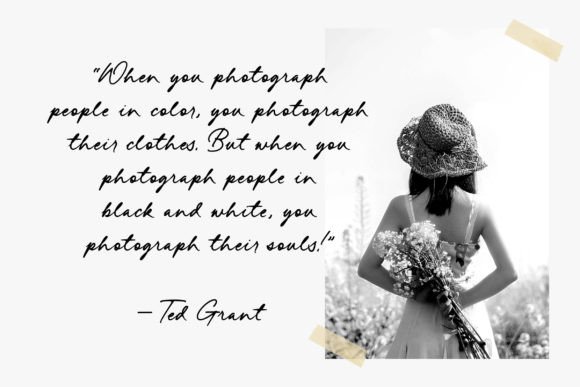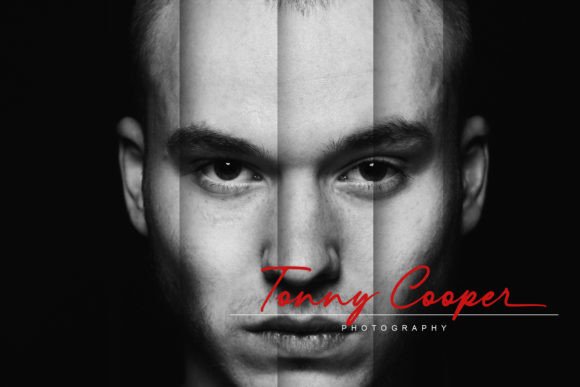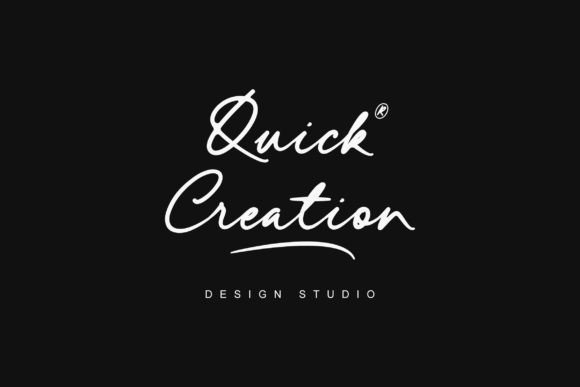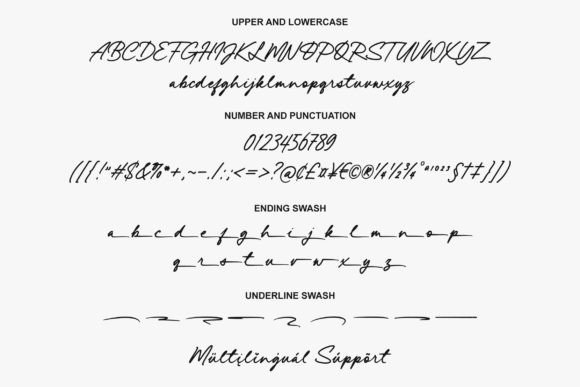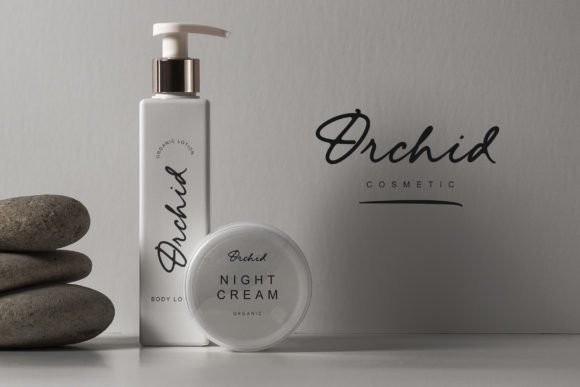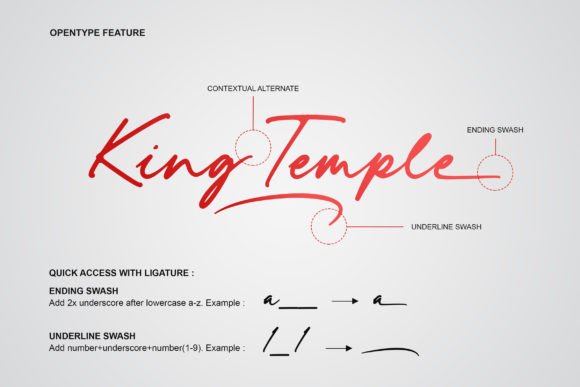
Introduction to Dockyard Font
Dockyard is a relaxed handwritten font, that has a gentle and beautiful flow.
This font is perfect for logos, wedding invitations, stationery, photography, social media posts, product packaging, greeting cards, and much more Dockyard font is PUA encoded which means you can access all of the glyphs and swashes with ease.
Key Features of Dockyard Font